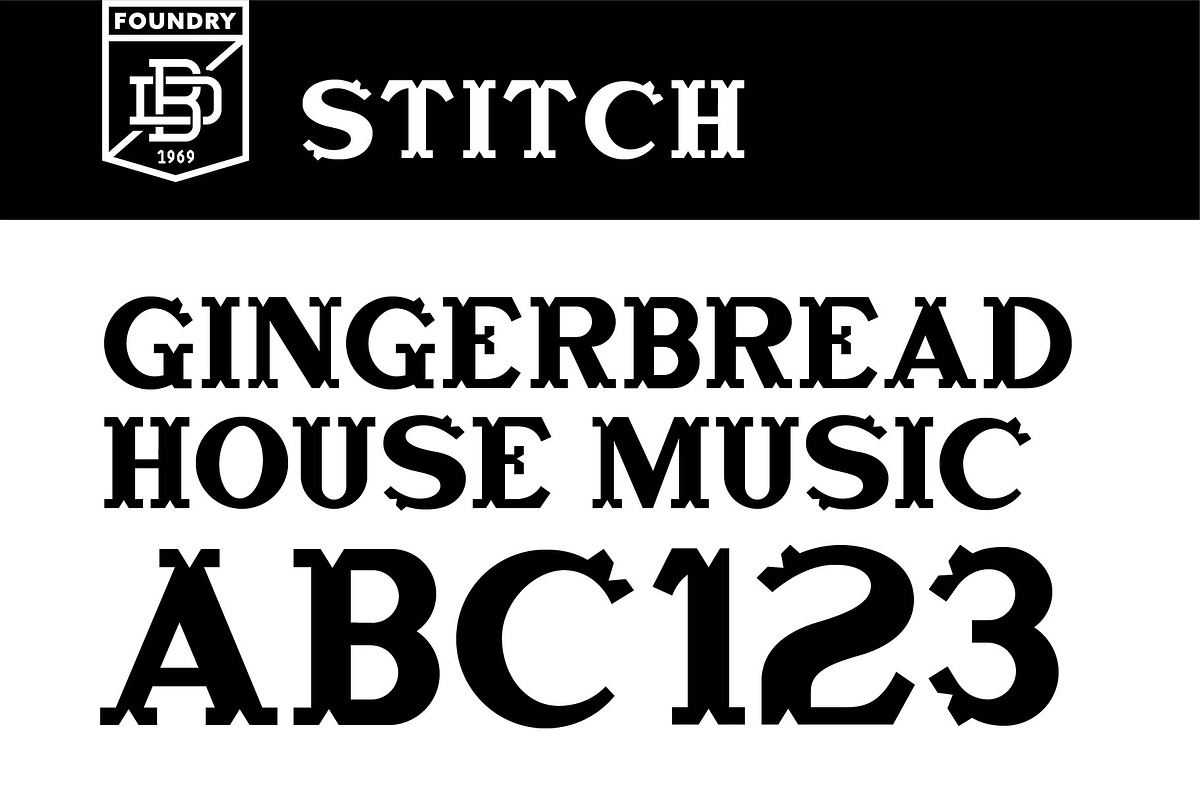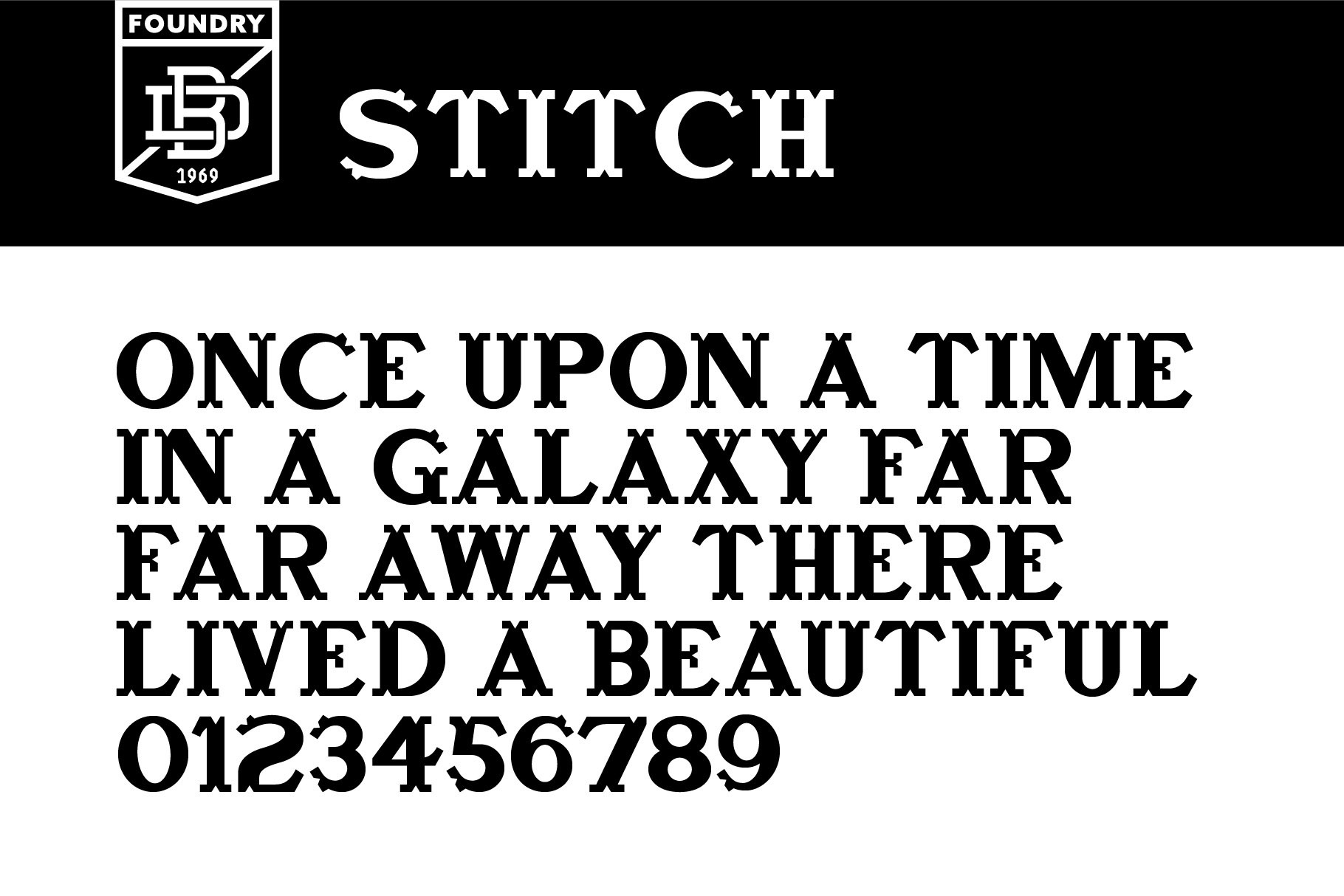
Stitch display font
Stitch is a display face with unique bracketed or pierced serifs that lend an antique or homespun feel, but rendered with crisp and tight modernity. Available in uppercase and numerals only.